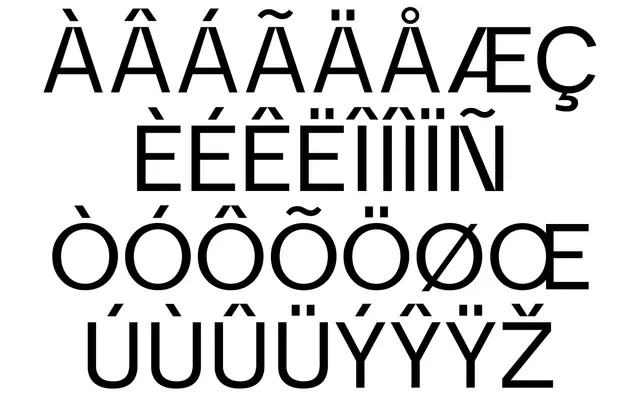
Practice Sans
Trulytype · 2018
A geometric sans with angled disconnections at diagonal strokes, giving letterforms such as A, M, N and V a stencil-like quality across nine weights.
Released in 2018, Practice Sans distinguishes itself through deliberate angled breaks at diagonal junctions in letters like A, M, N, V, W and y, producing a partial stencil effect within an otherwise clean geometric sans structure. Nine weights are available in OTF and WOFF2 formats with broad Latin Extended language coverage spanning over sixty languages. The effect works well in branding and display contexts where a touch of constructed rigidity is wanted without fully committing to an actual stencil face.
A sans-serif with geometric construction and deliberate stencil-like breaks at diagonal junctions, placing it broadly within geometric sans territory with a display-leaning character.